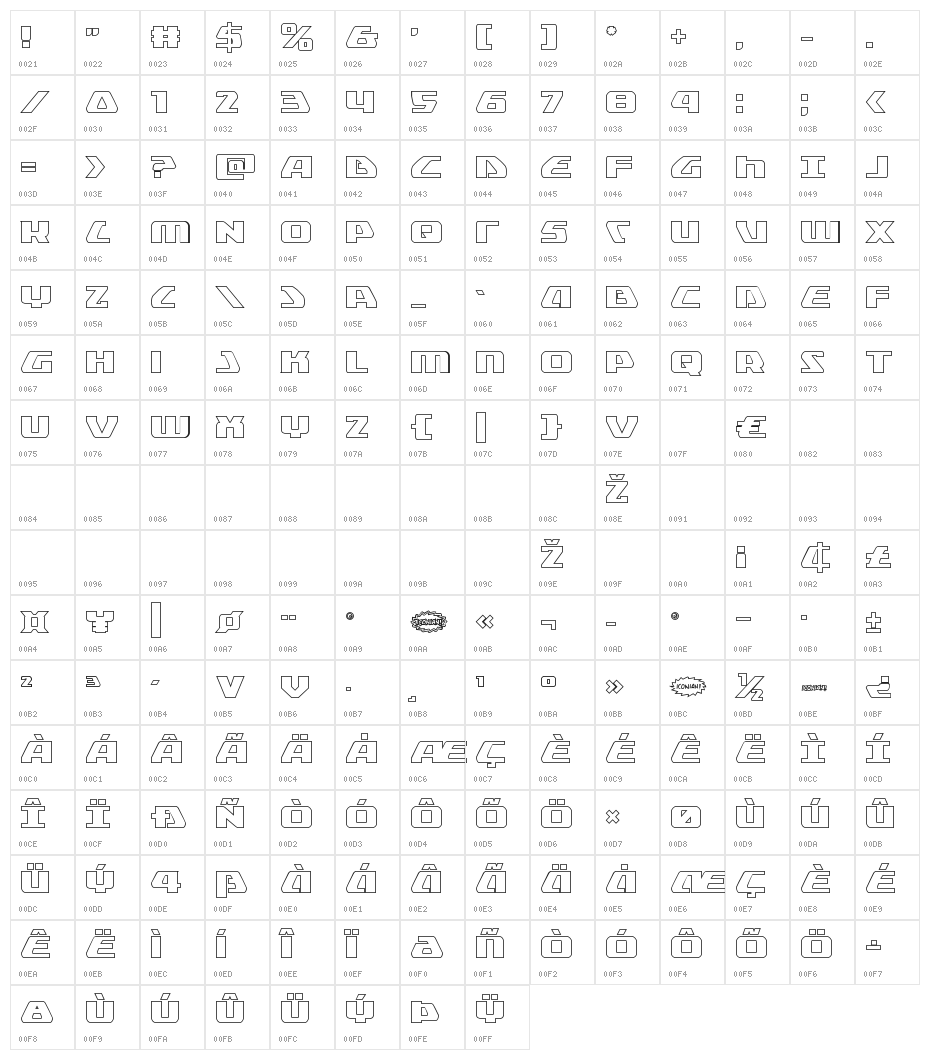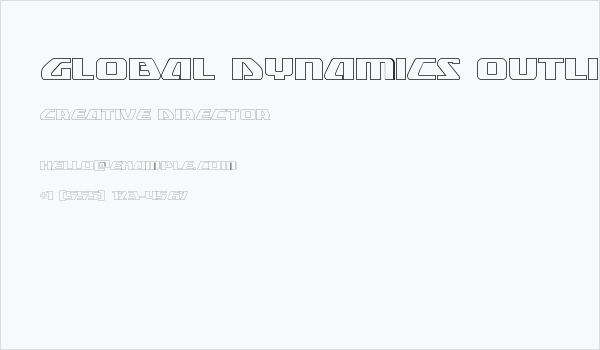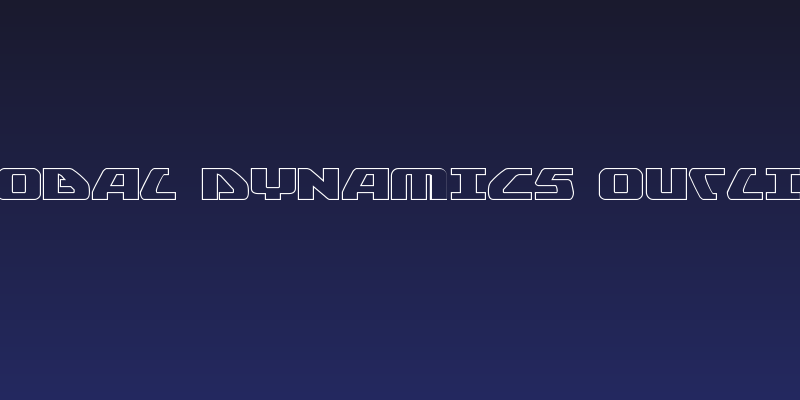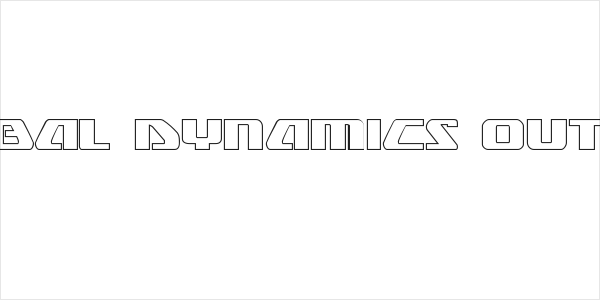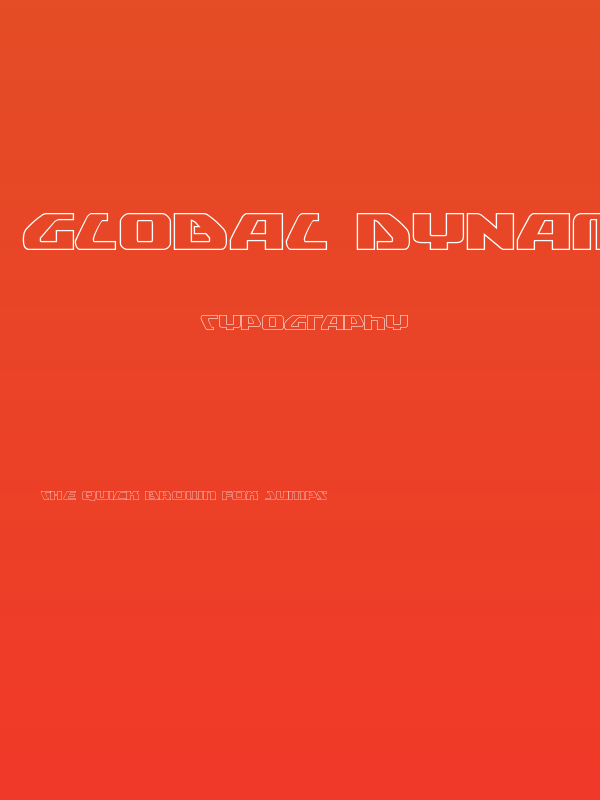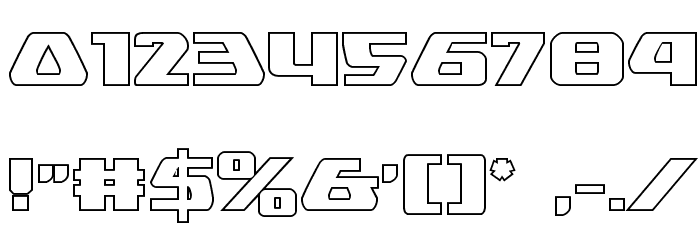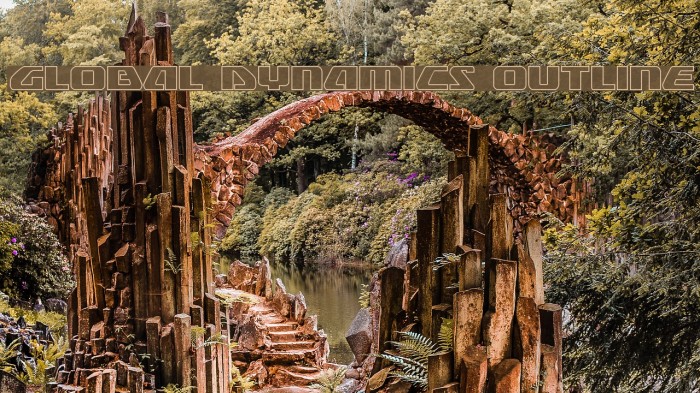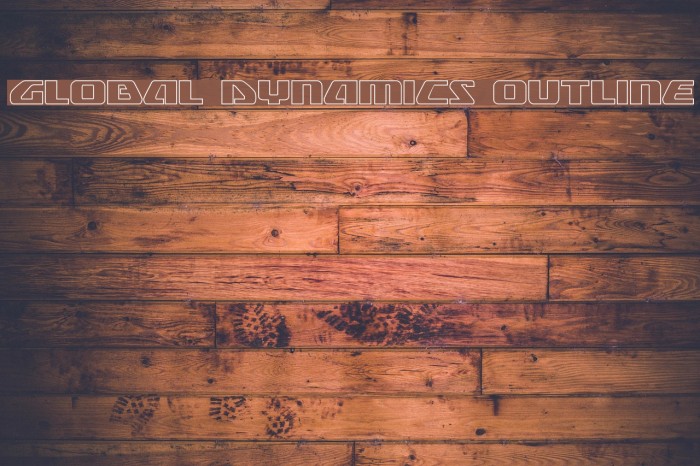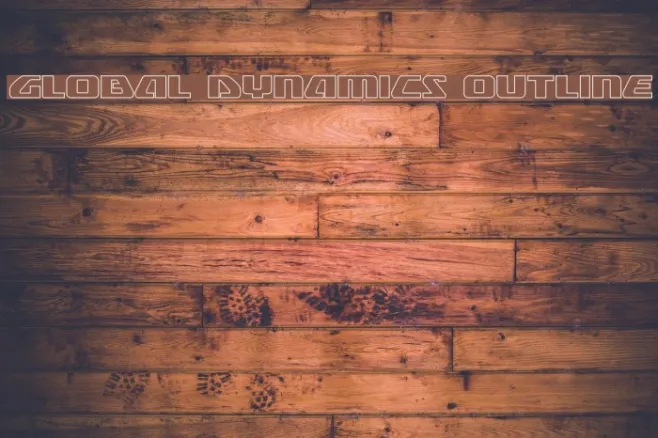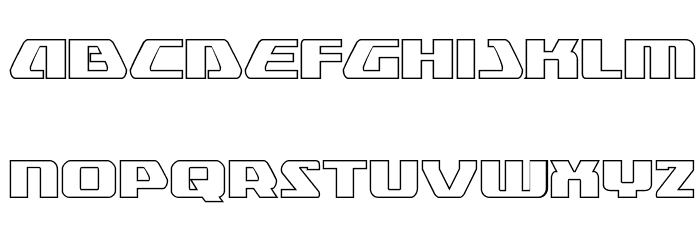
Global Dynamics Outline Font
Global Dynamics Outline Description
This font features a futuristic and geometric design with an outline style that emphasizes its angular and bold structure. Each character is crafted with precision, showcasing sharp edges and a consistent line weight that creates a cohesive visual impact. The uppercase and lowercase letters maintain a uniform height, enhancing readability while preserving the font's unique aesthetic. Numbers and special characters are designed to complement the alphabet, maintaining the same geometric theme. The overall look is modern and dynamic, making it suitable for projects that require a strong, contemporary feel.
| Proposed Projects | Ideal for sci-fi themed designs, technology branding, video game titles, and modern posters. |